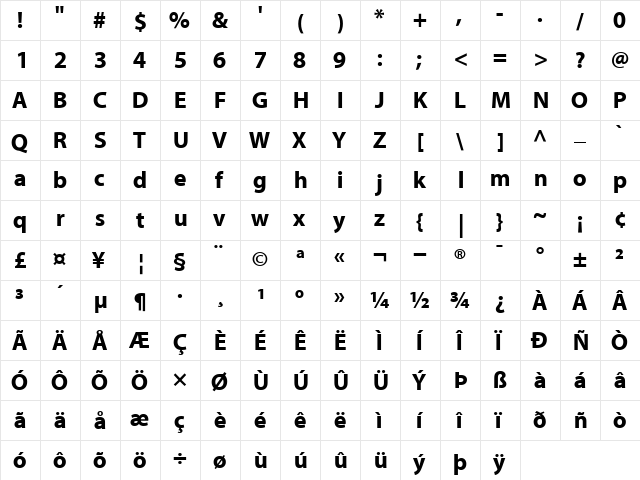
MyriadHeadline Roman
Design Context for MyriadHeadline Typeface
MyriadHeadline offers clean, dependable letterforms without strong stylistic allegiance, making it a practical choice for designers who need flexibility.